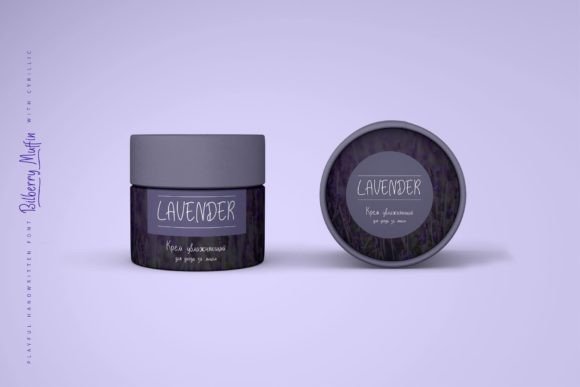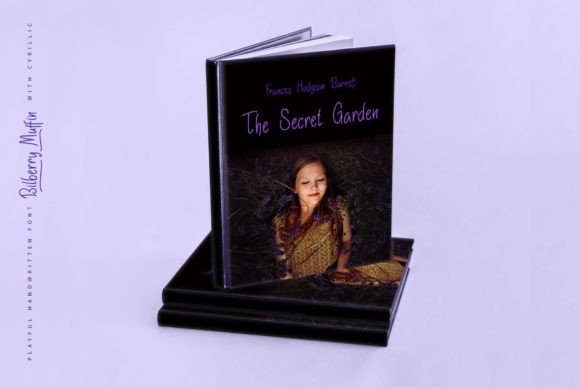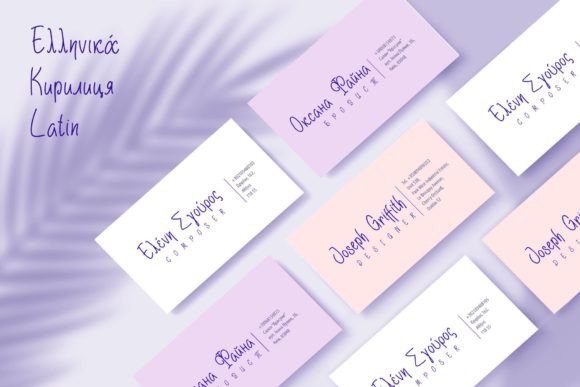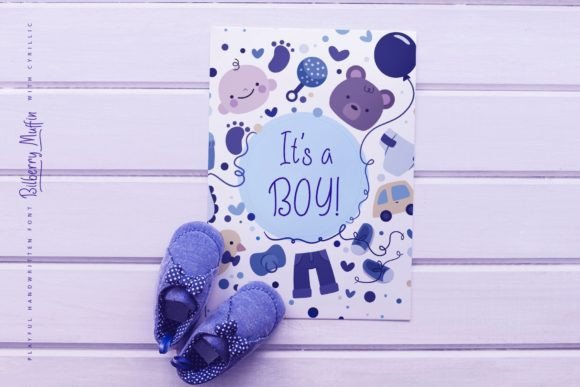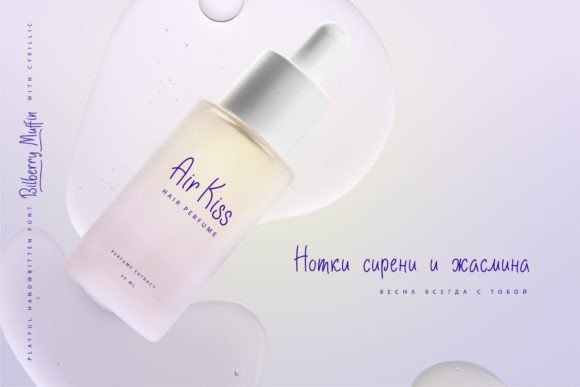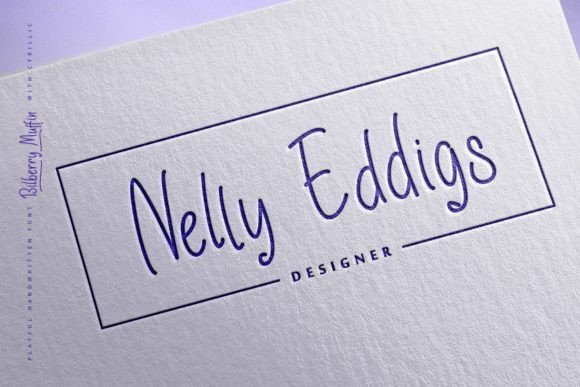
The Perfect Blend of Creativity and Character
As designers, we’ve all been there – staring at a blank page, trying to come up with the perfect idea to capture the essence of our brand. It’s a moment of pure creativity, where the right font can make all the difference. And that’s where the Bilberry Muffin Font comes in – a playful Cyrillic Greek script font that’s perfect for adding a touch of whimsy to your design projects.
This charming font is not just for aesthetics; it’s also incredibly versatile. From logos and signatures to labels and packaging design, the Bilberry Muffin Font is the perfect companion for any creative project. Its unique, hand-drawn illustrations and elements make it stand out from the crowd, and its ease of use makes it a valuable asset for designers of all levels.
Bilberry Muffin Font Key Features
- Font Size: 8,000+ glyphs, including a wide range of Latin, Cyrillic, and Greek characters
- Resolution: Supports high-resolution displays with clear and crisp typography
- Unique Characteristics: Distinctive, whimsical design with a mix of modern and vintage elements; perfect for branding, packaging, and editorial projects
- Language Support: Multilingual support, including Latin, Cyrillic, Greek, and many other languages
Bilberry Muffin Font Review
I’ve had the chance to play around with the Bilberry Muffin Font, and I’m excited to share my honest thoughts.
✨ I love the unique, hand-drawn feel of this font. It’s perfect for adding a touch of whimsy to designs that need a little personality. The curves and lines are smooth and well-executed, making it a pleasure to work with.
✨ The font comes in a range of weights, from light to bold, which gives designers plenty of flexibility when it comes to choosing the perfect style for their project.
⚠️ One of the main drawbacks of the Bilberry Muffin Font is its limited character set. While it’s great for short texts and headings, it might not be the best choice for longer bodies of text or complex layouts.
⚠️ The font also doesn’t come with a comprehensive set of icons or graphics, which might be a disappointment for designers who rely on these elements to enhance their designs.
The Bilberry Muffin Font is a delightful addition to any designer’s toolkit. While it has its limitations, its unique charm and versatility make it a great choice for projects that need a little extra personality.
Use the Bilberry Muffin Font for:
– Titles and headings to add a touch of whimsy and elegance.
– Branding and marketing materials to create a unique and memorable visual identity.
– Personal projects and hobbies to add a personal touch and express your creativity.